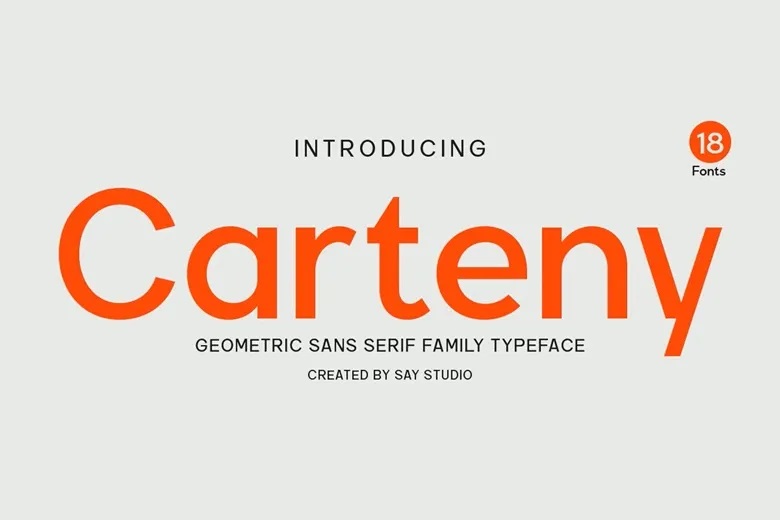
Carteny Font
Carteny Font is a geometrical typeface which is a modernized version of a sans serif font family and is made to provide simplicity, symmetry, as well as modernity. Constructed with clean geometry and accurate proportions, the typeface provides a smooth visual rhythmic that is professional, versatile and classic enough to suit modern design systems that require both aesthetics and functionality. Designed by branding designers, creative studios, startups, and marketing teams, Carteny offers a robust typographic base to numerous visual projects.
Carteny font family guarantees brand identity, logo, UI/UX, websites, and mobile apps, as well as editorial layouts, advertising campaign, social media graphics, packaging, and corporate communication, which always guarantee consistency, readability, and elegant visual response. Carteny provides the designer with 18 font styles, well-balanced weights, and pleasant spacing, providing the designer with total artistic freedom to create arranged layouts, robust hierarchies and smooth compositions.
Carteny Sans Serif Font